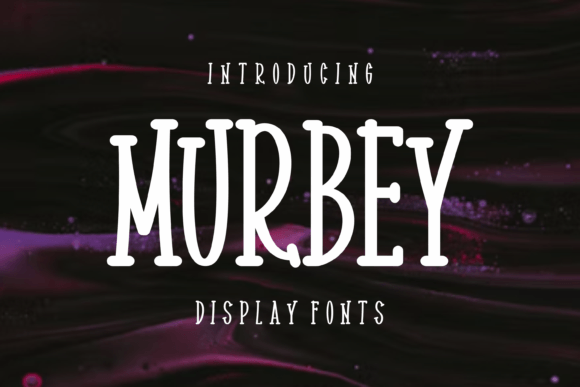
Prepare to be awe-inspired by the captivating Murbey Font, a masterpiece meticulously crafted by the renowned lelevien. This extraordinary display font unleashes a symphony of visual delight, beckoning you to embrace its playful spirit and unleash your creativity.
Unlike conventional fonts that blend into the background, Murbey demands attention, commanding a presence that captivates and mesmerizes. Its bold and quirky strokes dance across the page, inviting you to express yourself with unmatched originality. Whether adorning stickers that ignite laughter or stationery art that sparks inspiration, Murbey's versatility knows no bounds.
This typographic gem transcends mere functionality; it's an artistic expression that empowers you to transform your social media posts into eye-catching canvases. Its ability to elevate headlines to new heights is unparalleled, turning ordinary words into unforgettable declarations. With Murbey as your creative ally, you'll effortlessly craft designs that resonate with your audience, leaving an indelible mark on their hearts and minds.
But Murbey's allure extends far beyond its visual prowess. It's a font that speaks to your emotions, awakening a sense of joy and playfulness within you. Its whimsical nature sparks imagination, inviting you to explore uncharted creative territories. Whether you're a seasoned designer or simply seeking a unique way to express yourself, Murbey is the perfect font to ignite your passion.
So, if you yearn for a font that transcends the ordinary and empowers you to create designs that captivate and inspire, look no further than Murbey Font. Its versatility, charm, and undeniable beauty will transform your creative endeavors into extraordinary masterpieces that leave a lasting impression.